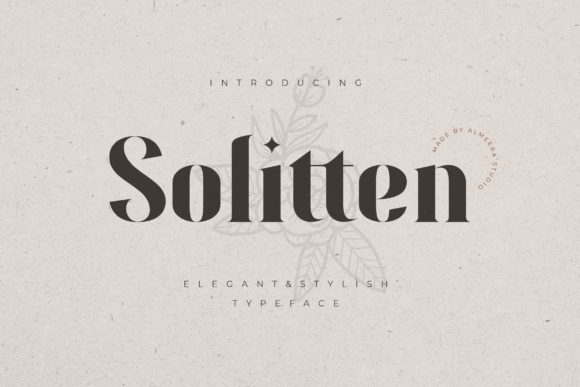
Unleash the elegance of Solitten Font - a captivating serif creation from the renowned Almeera Studio. Its bold and distinct letterforms effortlessly elevate your crafting projects, making it the perfect choice for those seeking an unforgettable touch.
Immerse yourself in the beauty of Solitten Font, a carefully crafted serif masterpiece that exudes charm and sophistication. As a Cricut lover, you'll find that this font harmonizes seamlessly with your creative vision. Its assertive presence and unique letterforms demand attention, transforming ordinary projects into captivating works of art.
With Solitten Font at your disposal, express yourself like never before. Whether you're designing custom cups, invitations, or logos, this font will make your creations shine. Its versatility shines through, adapting flawlessly to various aesthetics, from classic to contemporary.
Elevate your designs to new heights with Solitten Font. Let its enchanting curves and sharp edges captivate your audience and leave a lasting impression. Whether you're a seasoned designer or just starting, this font is your gateway to creating captivating designs that stand out from the crowd.
Experience the allure of Solitten Font today and embark on a creative journey where elegance and distinctiveness collide. Allow your imagination to soar as you witness the transformative power of this remarkable font.